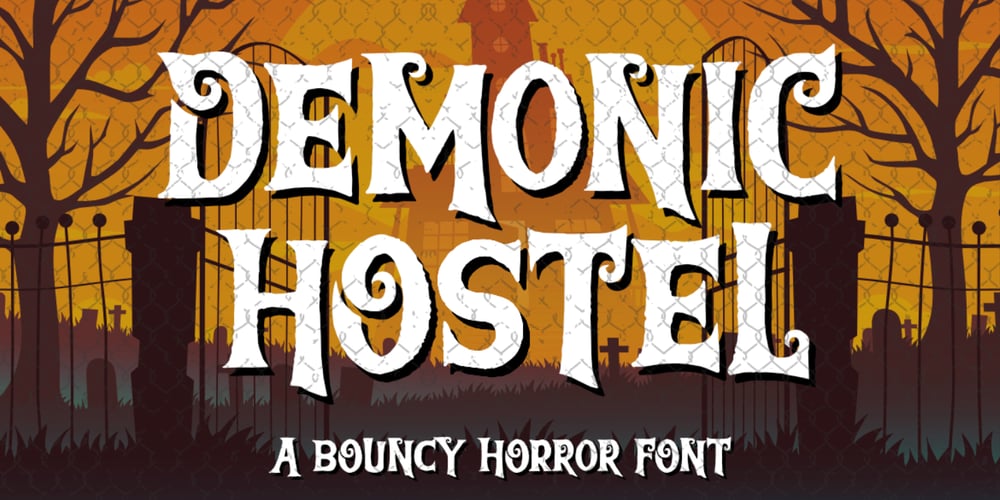
DeMoniC HosTeL BoUNcY Font Family was designed by Bayu Aji Fais Mursid and published by Bayuktx. DeMoniC HosTeL BoUNcY contains 1 styles and family package options. Hello,Thank you for visiting my products, we will give you the best choice.Demonic Hostel a Bouncy Horror Font, This font is made with a high premium quality level which you can use as flyers, quotes, posters, banners, packaging, merchandise, logotypes and much more.FEATURES :* Uppercase* Lowercase* Number* Punctuation* Multilingual* PUA Encode* OpentypeFILES INCLUDED :* Demonic Hostel. Thank you